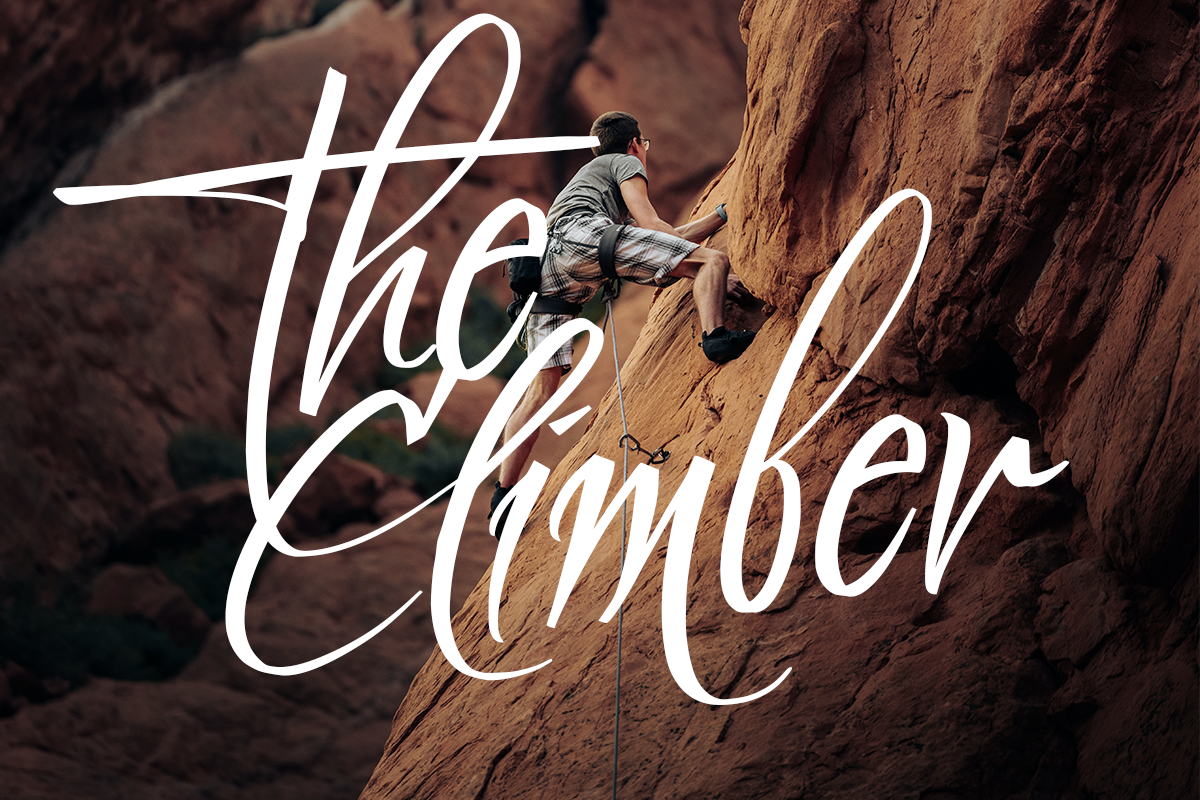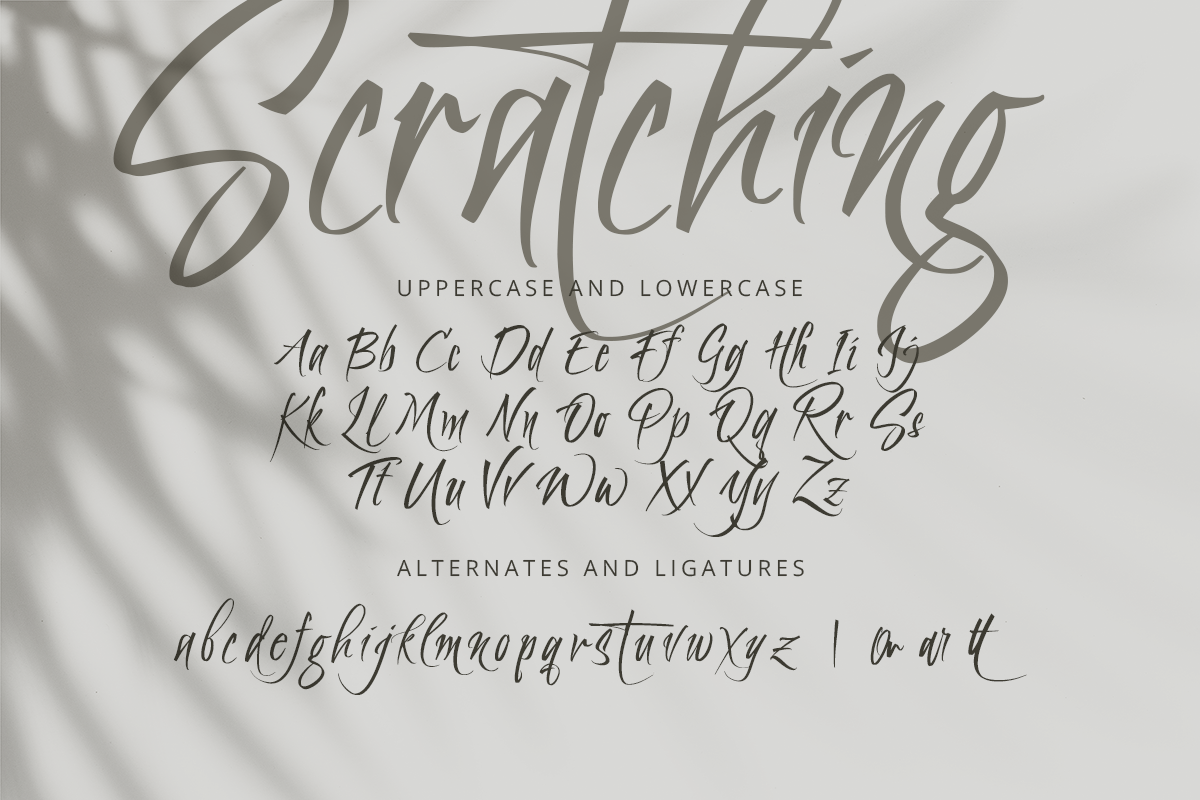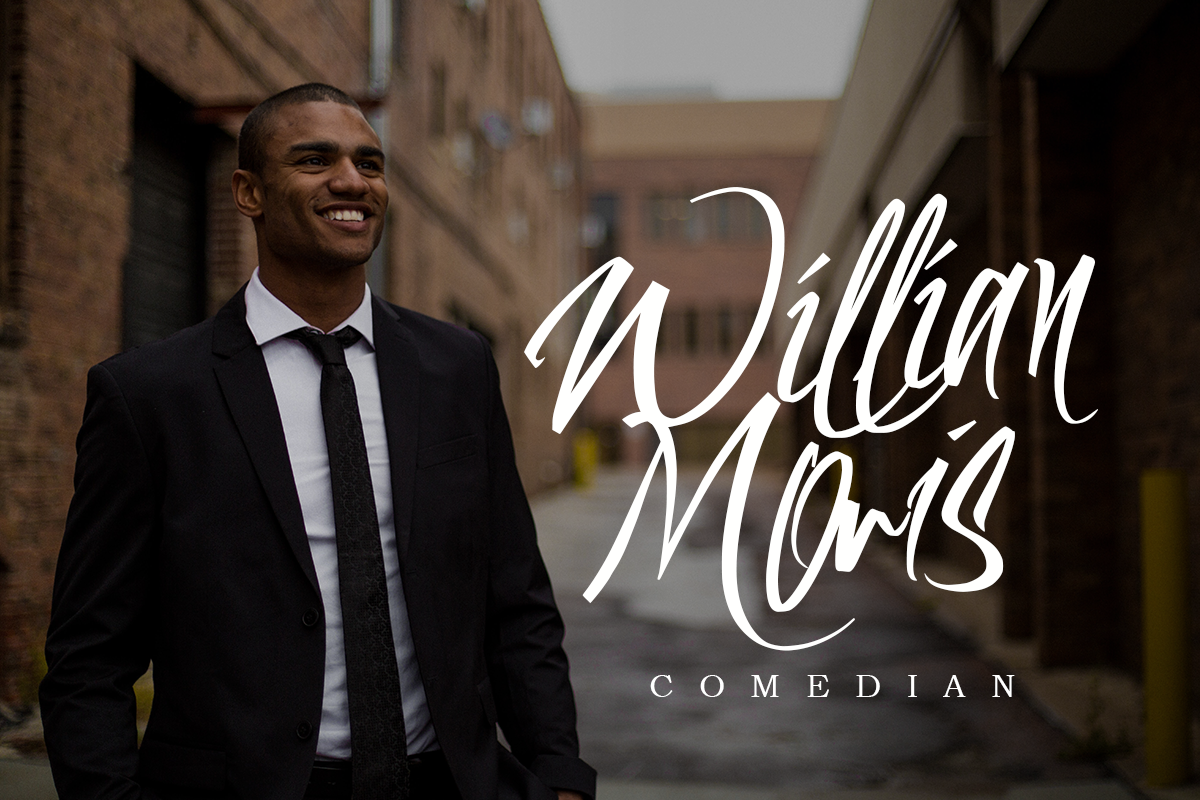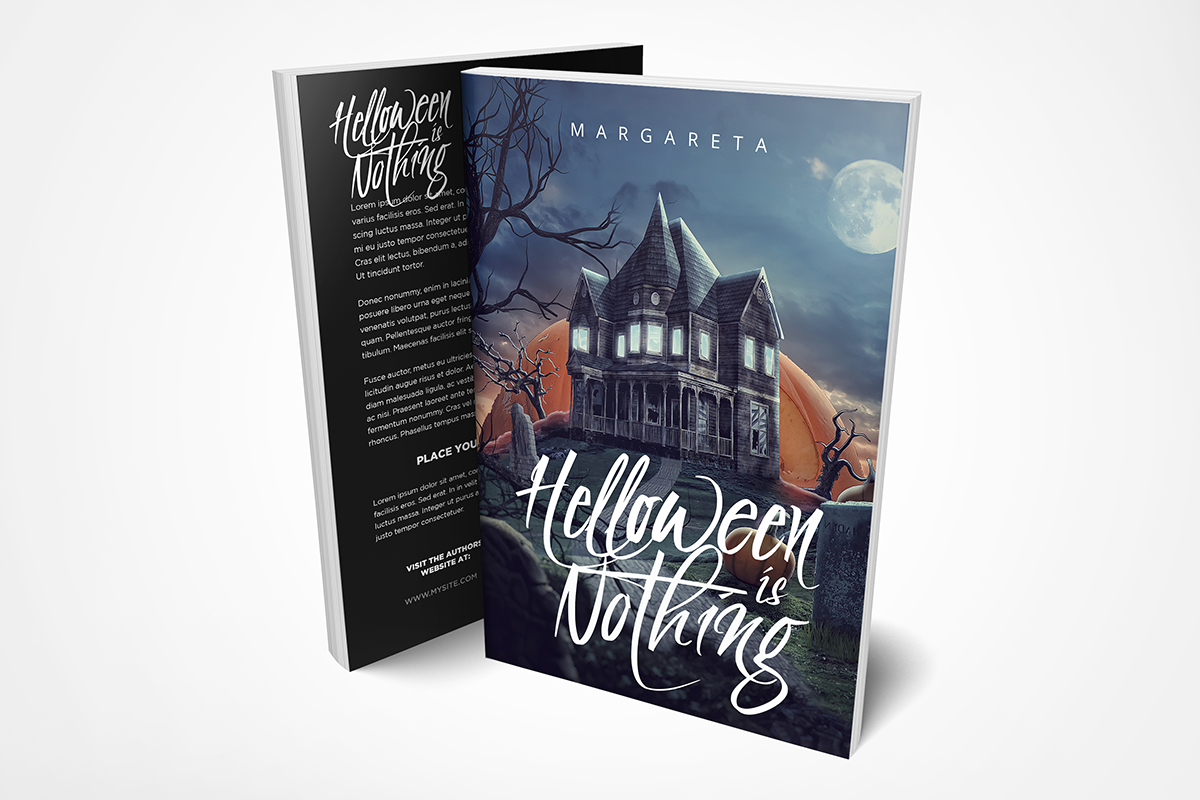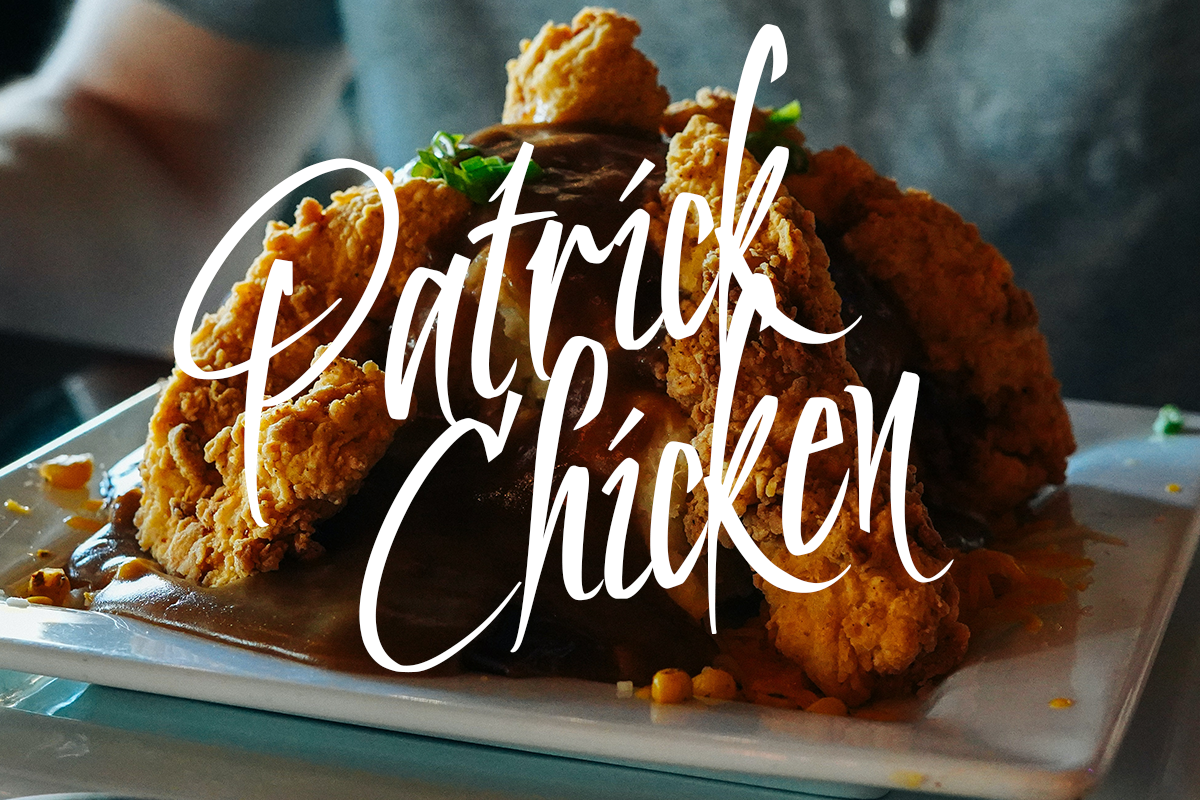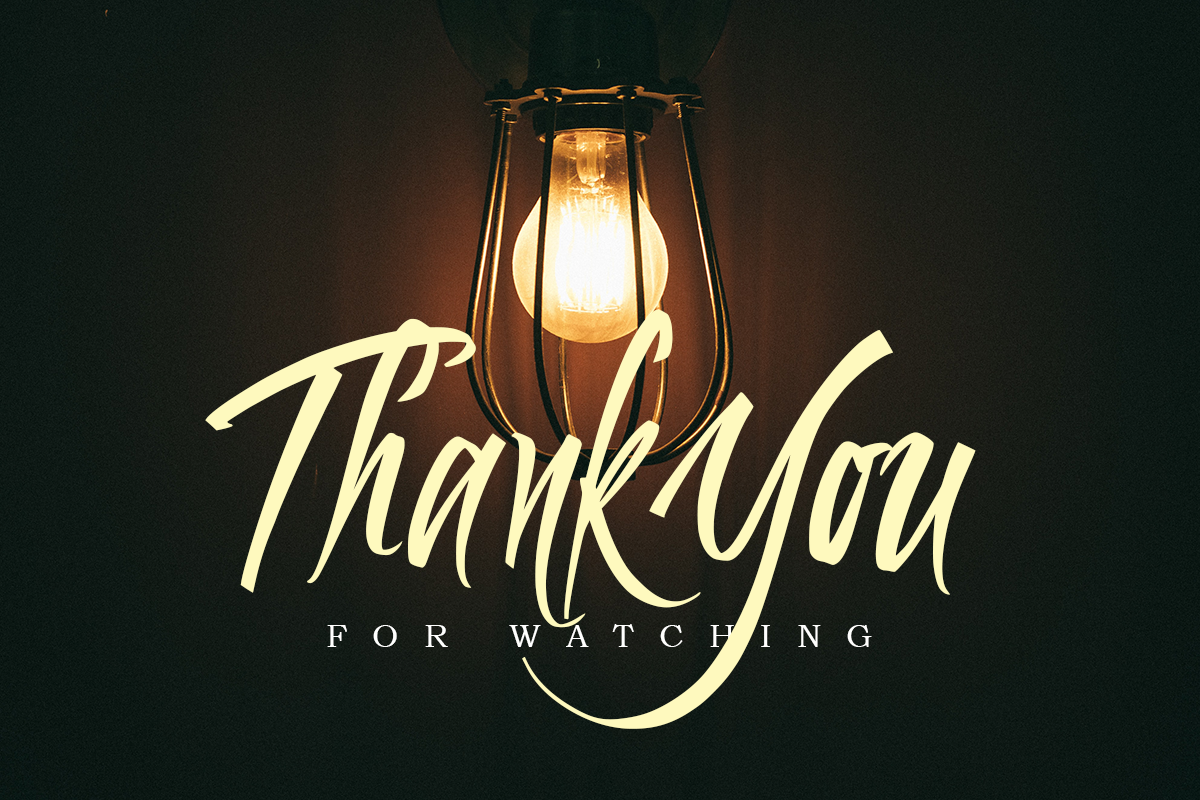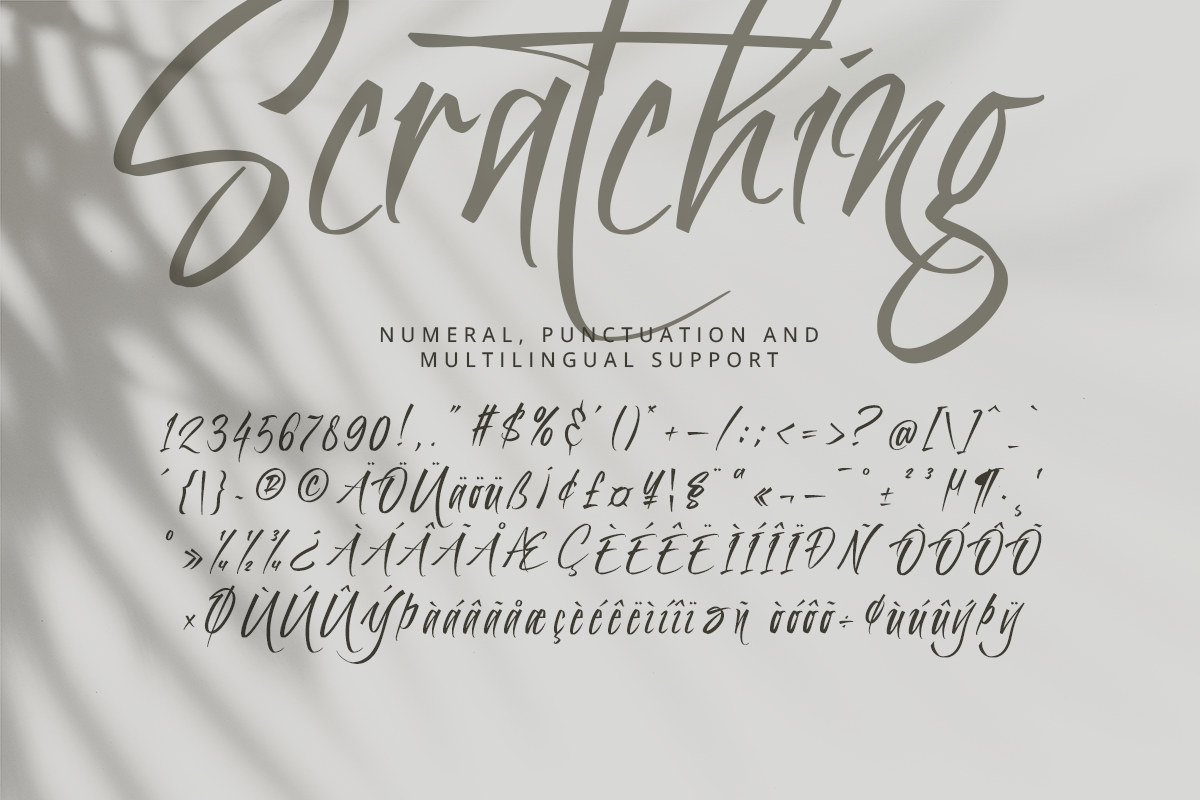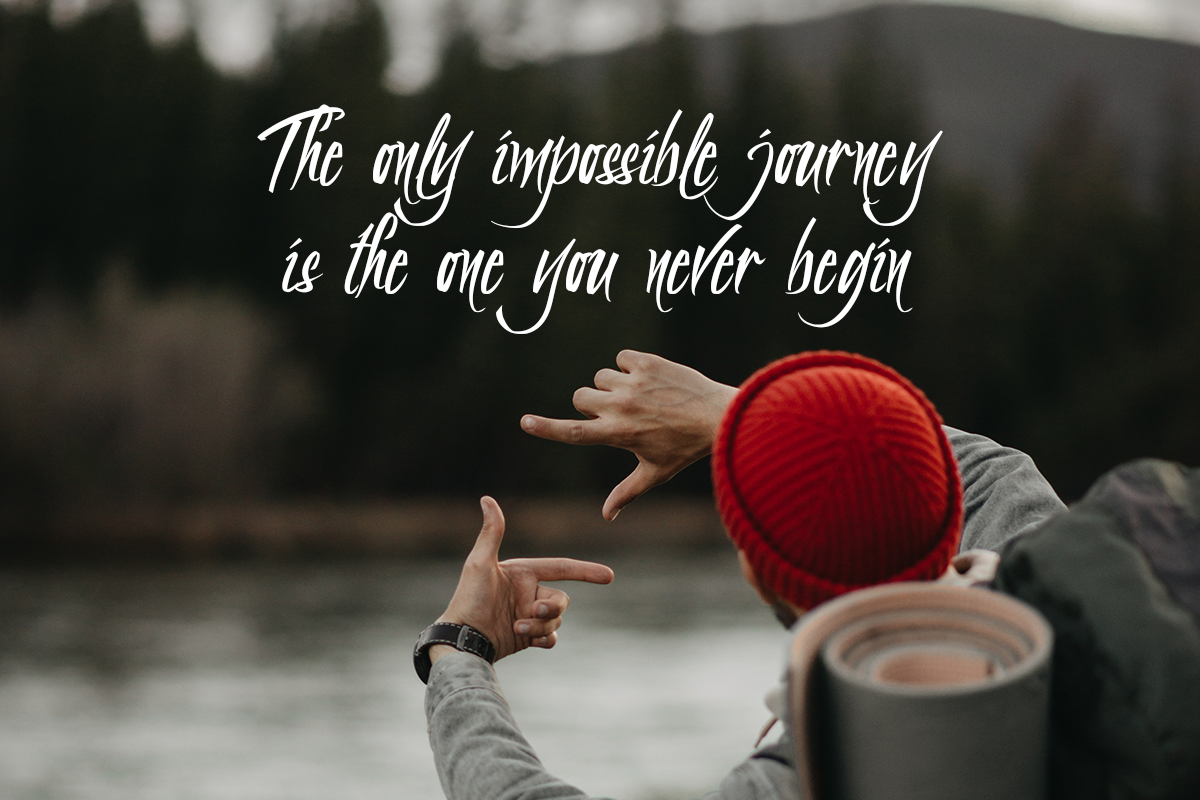
Scratching Modern Handwritten Font The Scratching Modern Handwritten font is an elegant and well-liked handwritten display font. This typeface used a brush pen to create it, so the beauty shines through and is original. Scratching Modern Handwritten Font has the characteristic of being continuous between letters and has a low level of legibility. This font is an eligible font. The brush used in this font is a small-tipped brush, so the resulting strokes are long and thin, curved and continuous. This type of font is perfect for use on posters and magazine covers with a modern theme. You can also use it as branding for a product, such as food and clothing brand tags. Scratching Modern Handwritten Font will give you a unique, modern, and attractive appeal. For other formal events like the art exhibit, you can use the Scratching Modern Handwritten font on show titles, team shirts, signage, and other items. Combined with the proper theme, supporting images, and atmosphere, the uniqueness of this font will shine differently from general fonts. Our Script & Signature fonts collection is used as Figma Fonts, Canva Fonts, Freepik Fonts, and Adobe Fonts. They also work as Windows and Apple Fonts. For your social media needs, you can use and install fonts in our Script & Signature font collection to use as Instagram Fonts, Facebook Fonts, and Twitter Fonts.